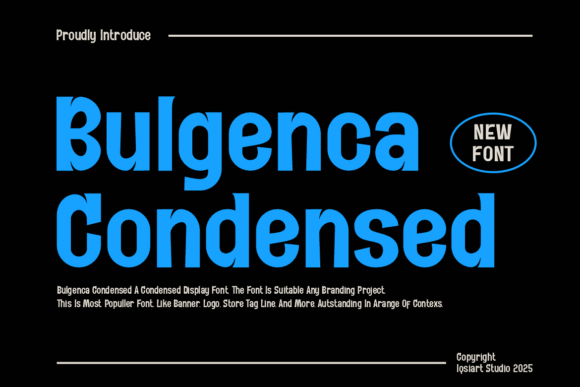
The Power of a Perfect Font: Unlocking Bold Visuals with Bulgenca Condensed
Have you ever stared at a blank canvas, desperate for that one element that will bring your design to life? The search for the perfect font can be a daunting task, but what if I told you there’s a secret to elevating your visuals and making them truly unforgettable? Enter Bulgenca Condensed Font, a sleek and contemporary sans-serif display font designed to make a statement.
With its tall, narrow letterforms and clean aesthetic, Bulgenca Condensed Font is the ultimate tool for designers looking to create high-impact visuals. Whether you’re crafting striking headlines, stylish product labels, or editorial layouts, this font delivers clarity with confidence. Its versatility makes it an invaluable asset for any design project, and its value lies in its ability to elevate your brand’s identity and leave a lasting impression.
Bulgenca Condensed Font Key Features
- Font Family: Bulgenca Condensed, with 6 weights (Light, Regular, Medium, Demi, Bold, Black)
- Unique Characteristics: The Bulgenca Condensed font is designed to be highly legible and versatile, making it suitable for various design applications, including body text, headings, and titles
- Language Support: Supports a wide range of languages, including Latin, Cyrillic, Greek, and many others, with comprehensive Unicode coverage
Bulgenca Condensed Font Review
Overall, I think the Bulgenca Condensed Font is a great choice for projects that require a clean, modern aesthetic. ✨ Its condensed design makes it perfect for situations where space is limited, such as in mobile apps or social media headers.
Here are some of the things that I like about the Bulgenca Condensed Font:
- ✨ Clean and modern design
- ✨ Great for condensed text
- ✨ Works well in digital environments
- ✨ Supports a wide range of languages
However, there are a few limitations that I’d like to mention:
- ⚠️ Limited stylistic variations
- ⚠️ Not ideal for large blocks of text
- ⚠️ May not be suitable for print projects
Overall, I think the Bulgenca Condensed Font is a solid choice for designers who need a clean and modern font for their digital projects. While it may not be perfect for every situation, it’s a great option to consider when you need a condensed font that looks great in a variety of contexts.
Bulgenca Condensed Font is ideal for:
- Designing modern and minimalist logos
- Creating professional-looking presentations and documents
- Adding a unique touch to digital products and websites